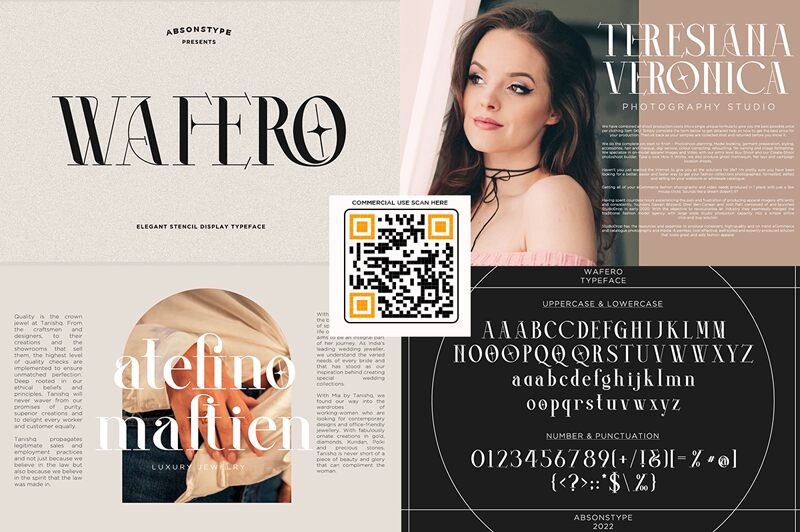
Wafero, crafted by Absonstype Studio, is a striking display font that exudes retro charm and sophistication. Its condensed form elegantly elongates each character, while the playful curves and exaggerated serifs add a whimsical yet refined touch. The font’s unique combination of delicacy and boldness makes it perfect for creating memorable headlines, logos, posters, and other design projects needing a vintage flair. Embrace Wafero to imbue your designs with both readability and aesthetic appeal that catches the eye effortlessly.